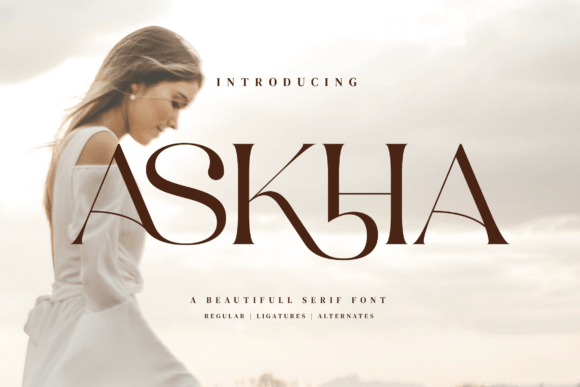
The Art of Elevating Luxury with Askha Font
As a designer, there’s no better feeling than crafting a visual identity that exudes refinement and sophistication. It’s the moment when all the elements come together – colors, typography, and composition – to create a breathtaking experience that leaves a lasting impression. For those seeking to elevate their designs to new heights, look no further than the Askha Font, a luxurious serif font that embodies the essence of high-end luxury.
With its majestic serifs and fluid curves, Askha Font is the perfect choice for high-end branding and editorial projects that demand nothing but the best. Its distinguished charm is sure to captivate audiences and leave a lasting impression, making it an invaluable asset for designers seeking to create truly unforgettable experiences.
Askha Font Key Features
- Unique Characteristics: Askha Font features a unique blend of traditional and modern design elements, with intricate details and subtle flourishes that set it apart from other fonts.
Askha Font Review
Overall, I think the Askha font is an interesting addition to the world of typography. Here’s my honest take on what works and what doesn’t.
- The unique and modern aesthetic of the font makes it perfect for digital and print materials that need a touch of sophistication.
- The Askha font is highly legible, even at small font sizes, making it suitable for body text and headings alike.
- The font’s versatility allows it to be used across various industries, from fashion and design to technology and finance.
- The font’s limited character set and lack of language support may be a hindrance for some users.
- The Askha font may not be the best choice for projects that require a high degree of historical or traditional flair.
- The font’s bold and condensed styles may not be suitable for all projects, as they can feel a bit overbearing.
Overall, I think the Askha font is a solid choice for designers looking for a modern and sophisticated font. While it may have some limitations, its unique aesthetic and versatility make it a great addition to any design project.
The Askha Font is ideal for:
- Designing luxury branding materials
- Creating high-end typography
- Adding a touch of elegance to digital designs